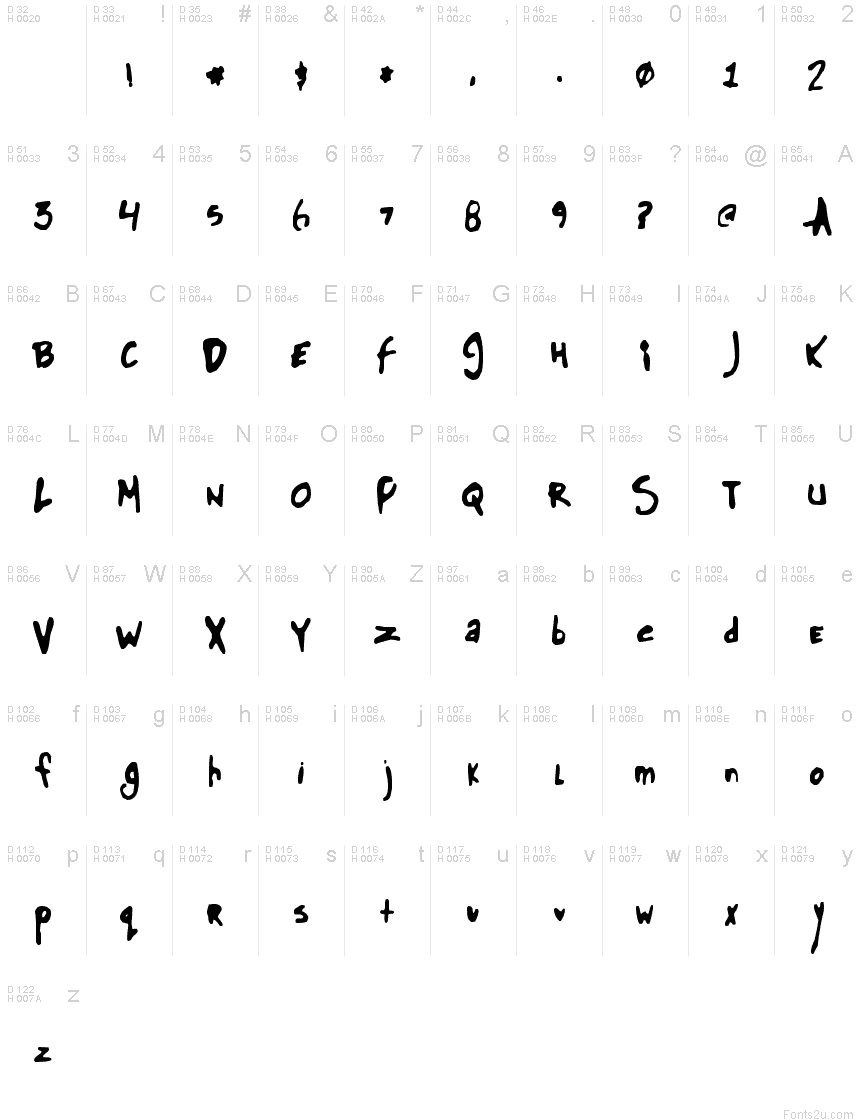
Glue
Glue font by John Martz is a free handwritten font that looks like it’s been squeezed straight from a marker tube onto the page. Thick, gummy strokes wobble and bulge, giving every word a bold, inky presence that feels messy in the best way—like doodles in the margin that suddenly became the headline. The spacing is tight and punchy, so text clumps together with that satisfying, sticker-like solidity.
Using Glue, your titles and short phrases instantly feel louder, looser, and more handmade. This free font shines on gig posters, zines, skate or streetwear graphics, kids’ activity sheets, YouTube thumbnails, and bold social posts where you want attitude over polish. Keep it large for maximum impact, and pair Glue with a clean, light sans serif in small text to keep the overall layout readable and grounded.